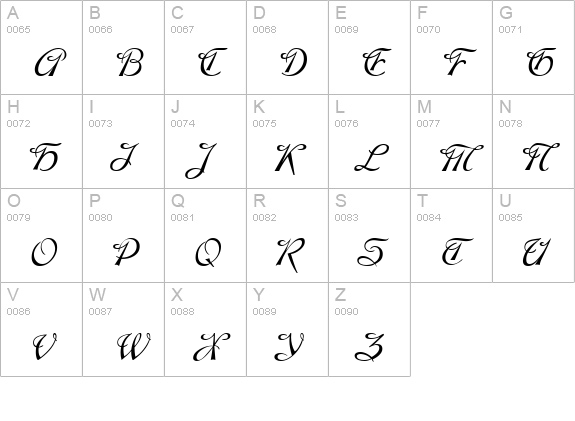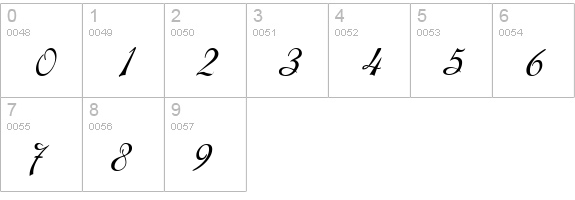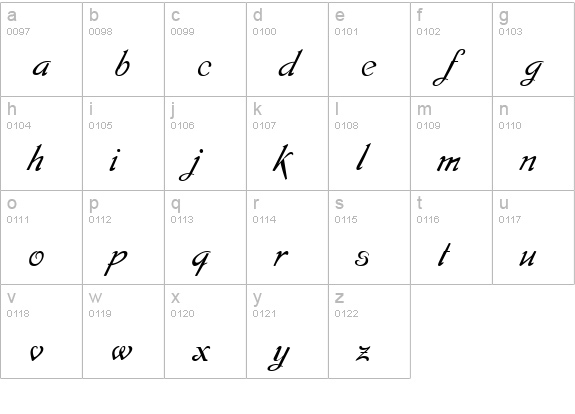
Introducing GE Montage font, a modern and stylish typeface that is perfect for a wide range of design projects. With its clean lines and elegant curves, GE Montage exudes sophistication and professionalism. This versatile font is suitable for both headings and body text, making it a great choice for branding, advertising, and more. What sets GE Montage apart is that it is available for free download at FontsMarket.com. This means that you can easily access this high-quality font without any cost, allowing you to elevate your designs without breaking the bank. Don't miss out on the opportunity to add GE Montage to your font collection today and take your projects to the next level.